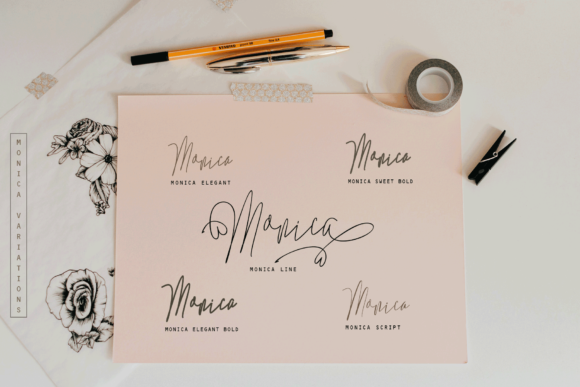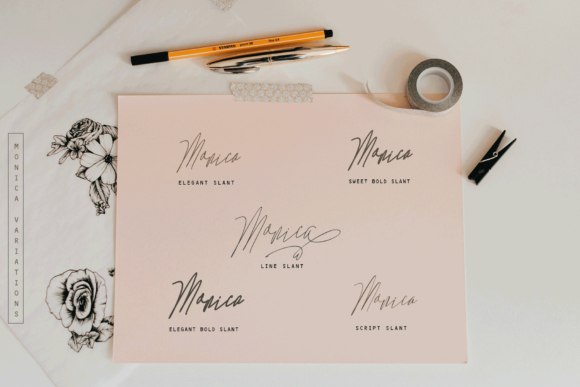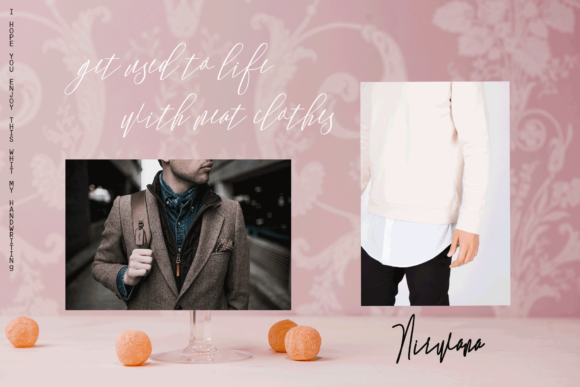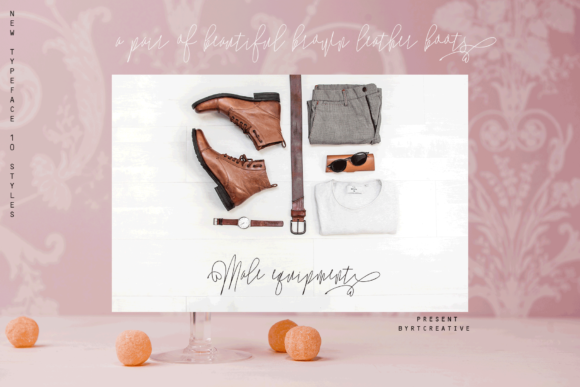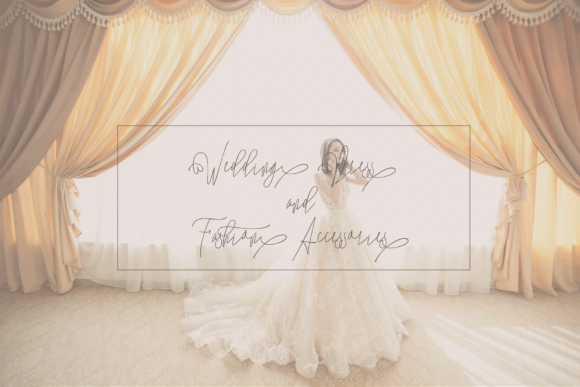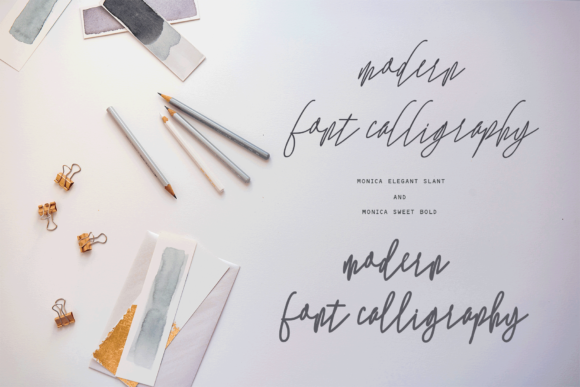
Introduction to Monica Family Font
As designers, we’ve all been there – staring at a blank canvas, waiting for inspiration to strike. It’s in those moments of creative uncertainty that the perfect font can be a game-changer. Imagine a font that not only adds a touch of personality to your design, but also provides the versatility to adapt to any project. That’s where the Monica Family Font comes in.
This beautiful, handwritten font is more than just a design resource – it’s a key to unlocking your creative potential. With its natural characteristics and ten stunning weights, the Monica Family Font offers endless possibilities for designers looking to elevate their work. Whether you’re working on a free download project or a high-quality commercial design, this font is sure to bring your vision to life.
Key Features of Monica Family Font
- High-quality design: Monica Family Font is a premium font designed for creative projects, offering a unique and elegant touch.
- Large character set: The font includes a large character set, including uppercase and lowercase letters, numbers, and special characters, making it suitable for a wide range of creative projects.
- Resolution-independent: Monica Family Font is designed to be resolution-independent, ensuring that it looks great at various resolutions and screen sizes.
- Perfect for design projects: With its elegant and sophisticated design, Monica Family Font is ideal for use in design projects, such as logos, brochures, and business cards.
Honest Review: Monica Family Font
As a designer, I’m always on the lookout for high-quality design resources to enhance my creative projects. Recently, I stumbled upon the Monica Family Font, and I must say, it’s been a game-changer for my recent designs. The font is a free download, which is a huge plus, making it an excellent addition to any designer’s toolkit.
One of the standout features of the Monica Family Font is its transparent background, allowing for seamless integration into any design project. The font itself is incredibly versatile, with a range of weights and styles that can be used for everything from headlines to body text. I’ve used it in a variety of creative projects, from brochures to websites, and it’s always delivered.
Here are some of the things that work well with the Monica Family Font:
- ✨ High-quality design with a professional finish
- ✨ Versatile and adaptable to any design project
However, I did encounter some limitations with the font:
- ⚠️ Limited language support (only supports Latin scripts)
- ⚠️ Not suitable for projects that require a bold, sans-serif font
Overall, I’m thoroughly impressed with the Monica Family Font. Its high-quality design, versatility, and free download make it an excellent addition to any designer’s toolkit. While it may have some limitations, I believe it’s a fantastic resource for designers looking to elevate their creative projects.
Designing with Transparency
The Monica Family Font has a transparent background, making it perfect for designing with images or other graphics. This feature allows you to create visually appealing designs without the distraction of a solid background.
To get the most out of the Monica Family Font, use it in conjunction with other design elements, such as images, icons, and graphics. Experiment with different font sizes, colors, and styles to create a unique and eye-catching design.
The Monica Family Font is perfect for various creative projects, including:
- Graphic design projects
- Logo design projects
- Web design projects
- Print design projects